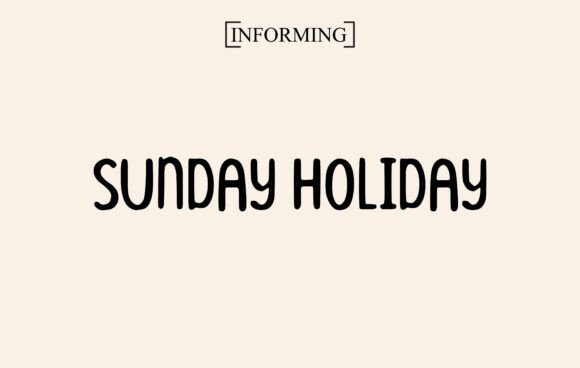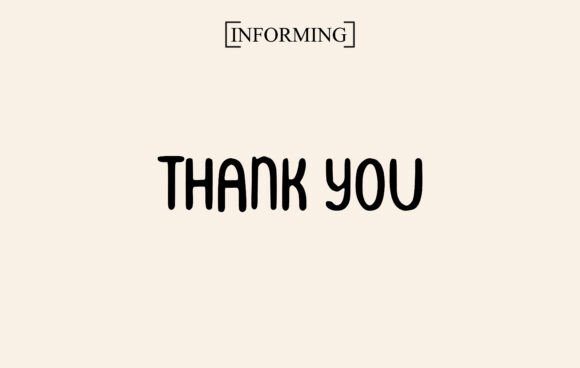
Solara Quill Font
About the Solara Quill Font
Step up your design game with Solara Quill Font, a font that exudes confidence and style. Solara Quill Expertly designed to be a true favorite, this font has the potential to take your creative ideas to the highest level
This font is legible and looks great as a title or body text. This font would be perfect for many different designs for magazine headlines, t-shirt,social media, branding, wedding invitations, cards, etc.
Solara Quill Font Usage Examples
Solara Quill Font Example